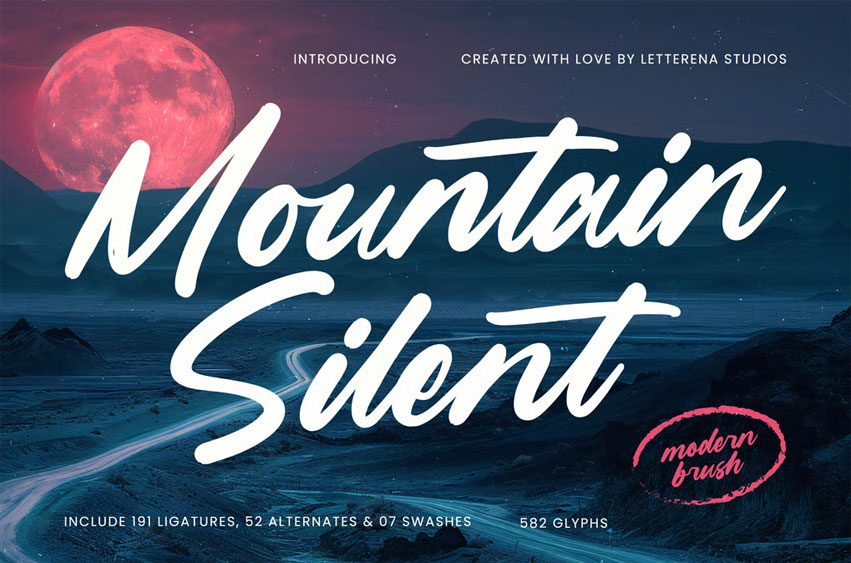
Mountain Silent Font is suitable to complement your digital and printed creative products.
This font is perfect for posters, social media posts, branding, personal projects, etc.